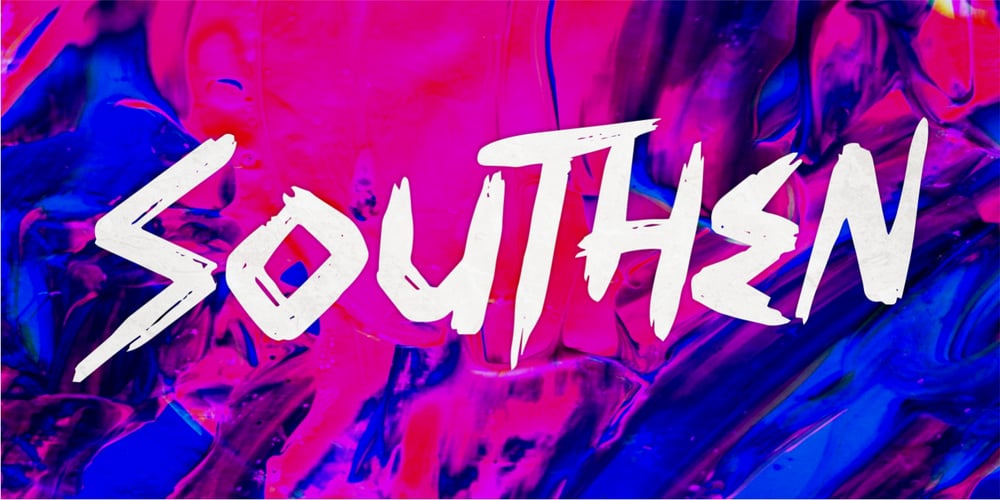
Southen Font Family was designed by Risman Ginarwan and published by Garisman Studio. Southen contains 1 styles and family package options. SOUTHEN combines attractive curves with a fresh urban edge; delivering a stylish script which is guaranteed to add an eye-catching appeal to your logo designs, brand imagery, handwritten quotes, product packaging, merchandise & social media posts Advantages: – Simple installation – Works for PC and MAC – Multilingual Support – Extra Swashes – Detailed dry brush